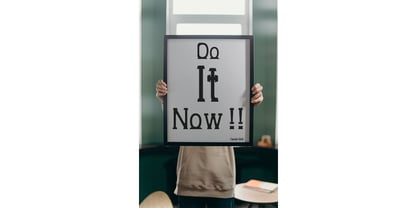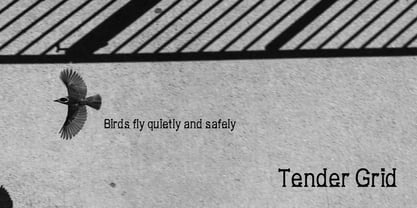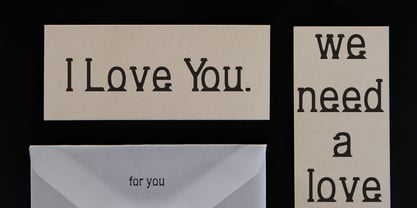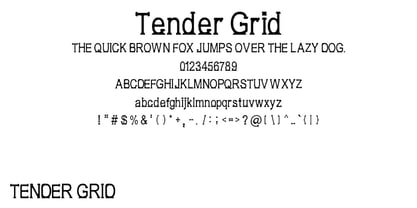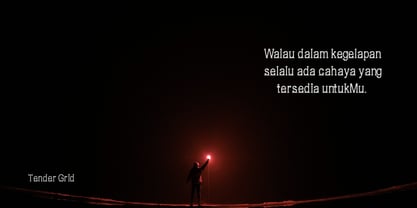
Tender Grid
The Tender Grid Font Family was designed by Randy Prince and published by Randy Studio. Tender Grid contains 1 styles. More about this family
Tender Grid is a uniquely designed, attractive font that is pleasing to the eye and easy to read.
Perfect for those who appreciate a simple, clean font style.
Suitable for:
- Use as a primary font.
- Design projects.
- Coding (its clean, legible design ensures characters are easily distinguishable).
- And much more.
With this unique design, you can give your screen a beautiful, elegant, and simple look.